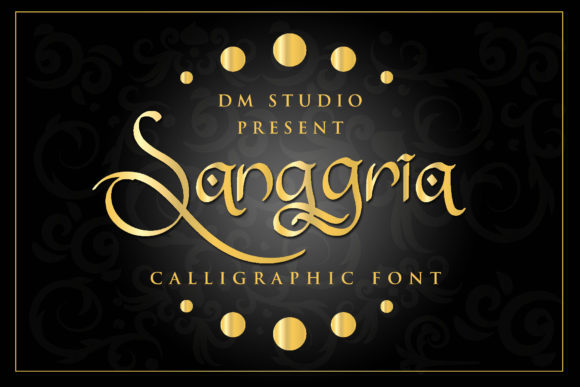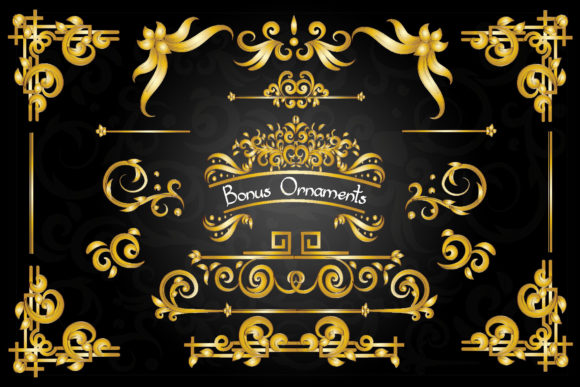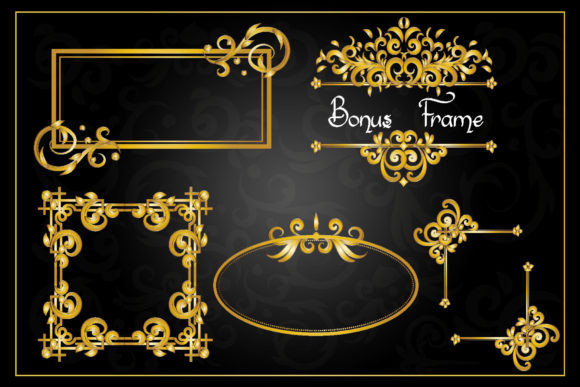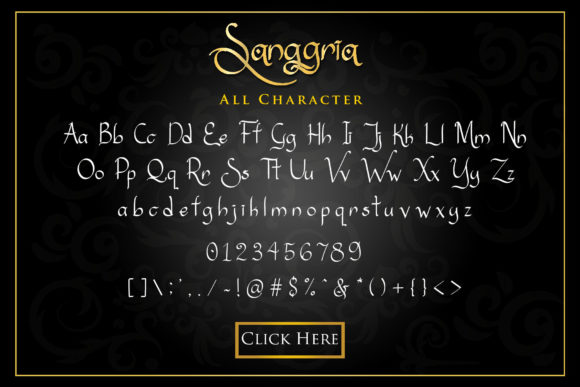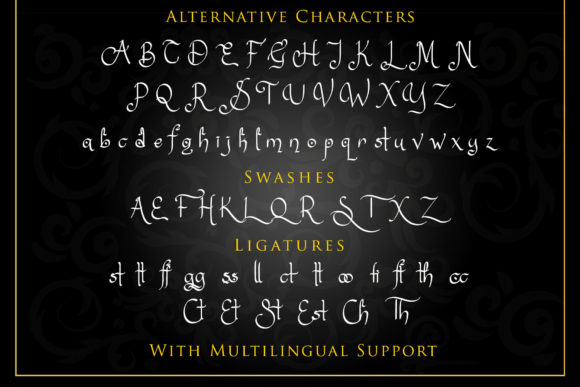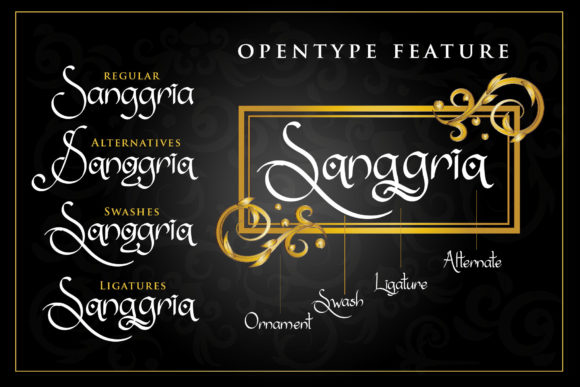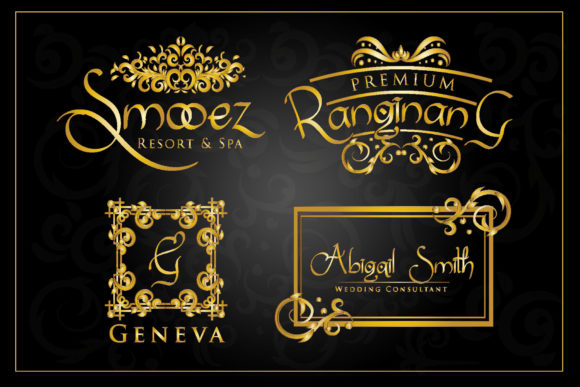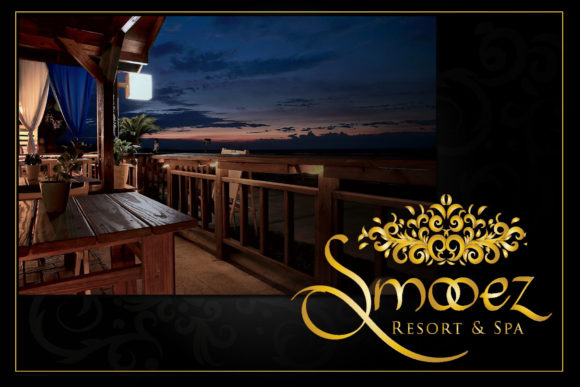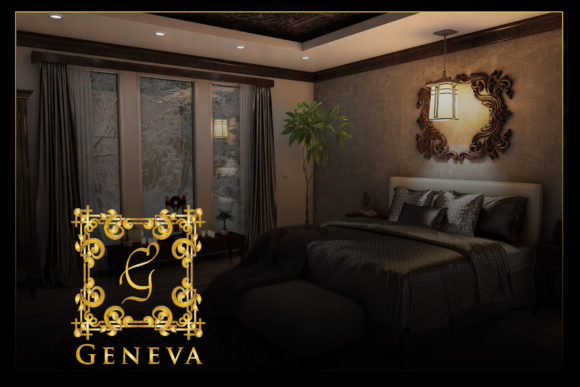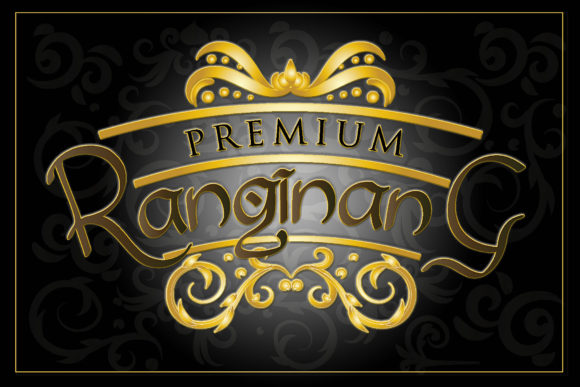
Sanggria Font
About Sanggria Font
The Sanggria is a classy handwritten font. It was inspired by classical cultures and has an ancient calligraphy style.
It’s a great choice for logos, branding, letter signs, stamps, business cards, advertisements, flyers, posters, and more!
Included as a bonus are ornaments and frames to give your designs a classy and catchy touch.